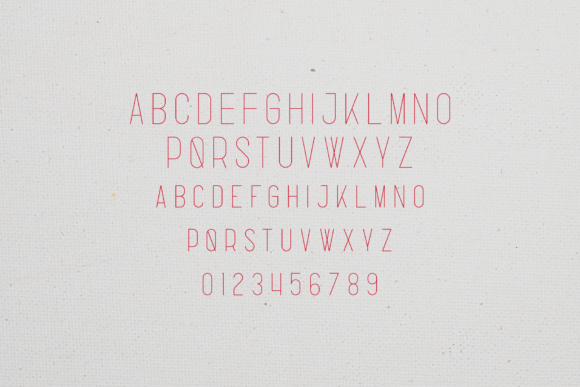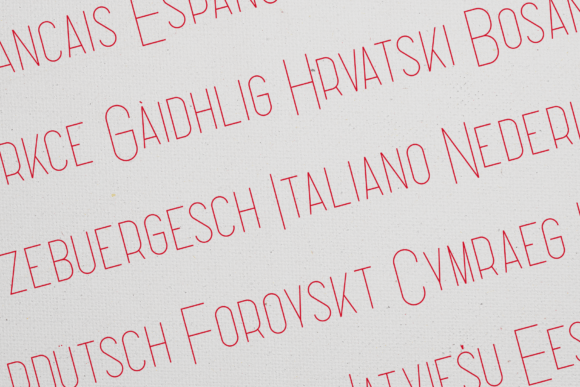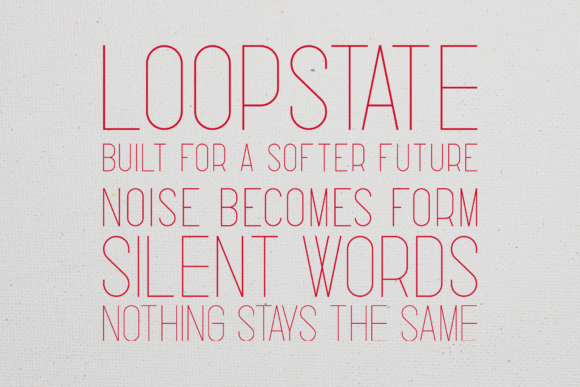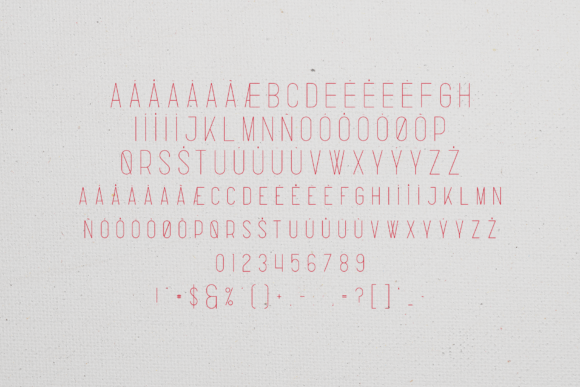
Introduction to Fabulist Font Font
Fonts play a crucial role in design, and the Fabulist Font font is a typeface that brings both character and versatility to any project. Whether you’re working on a branding project, a website, or a print design, the Fabulist Font font offers a unique style that can elevate your work.
Fabulist is a refined modern display sans serif designed for clean typography, contemporary branding, and elegant editorial design.
Its minimalist structure makes Fabulist ideal for modern branding systems, fashion editorials, luxury packaging, logo design, magazine layouts, and creative visual identities Whether used for branding, posters, editorial layouts, or digital design, Fabulist delivers a sleek, modern, and elegant typographic voice.
Key Features of Fabulist Font Font
Why Choose Fabulist Font Font?
The Fabulist Font font is more than just a typeface – it’s a design tool that helps you communicate your message with style and clarity. Its unique character set and versatile design make it suitable for a wide range of applications, from elegant invitations to bold headlines.
With its carefully crafted letterforms and balanced proportions, the Fabulist Font font ensures readability and visual appeal across all mediums.
What makes Fabulist Font font special?
The Fabulist Font font stands out with its unique design, exceptional readability, and versatility across various design applications.